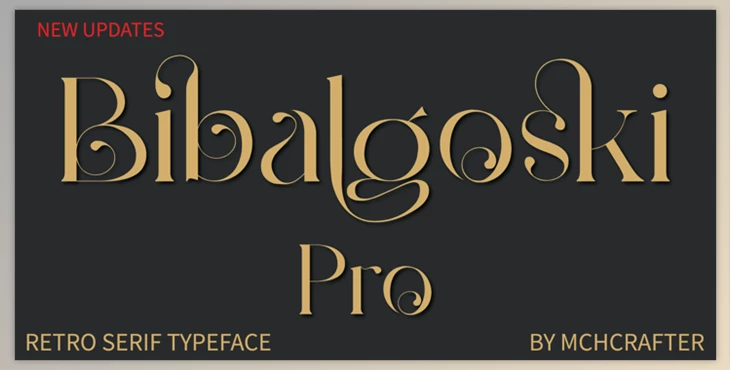
Bibalgoski Pro Font: Bibalgoski Pro is a Modern Stylistic Serif typeface, A new serif typeface explicitly designed for branding requirements that includes additional ligatures and alternatives in a unique form to enhance your brand. It is a great way to help designers or owners of products who require options to enhance their look modern and trendy. Particularly specifically for Bibalgoski Pro Font, we created all the ligatures and alternate characters for you to make unlimited options for your design requirements.
Some great features of Bibalgoski Pro Font:
- All uppercase and lowercase letters
- All numbers from 0-9 and Punctuation
- Ligatures & Alternates
- Symbols
- Multilingual Letters